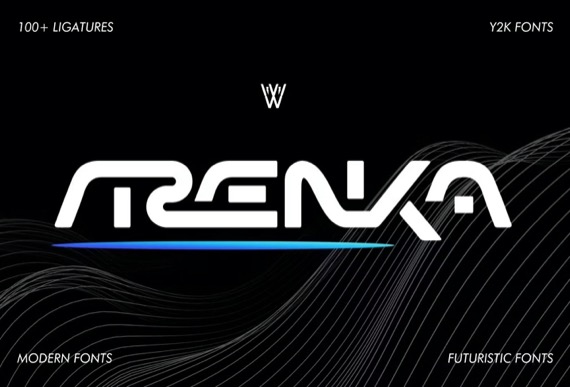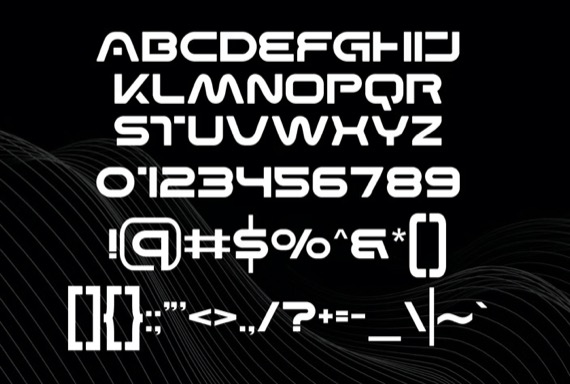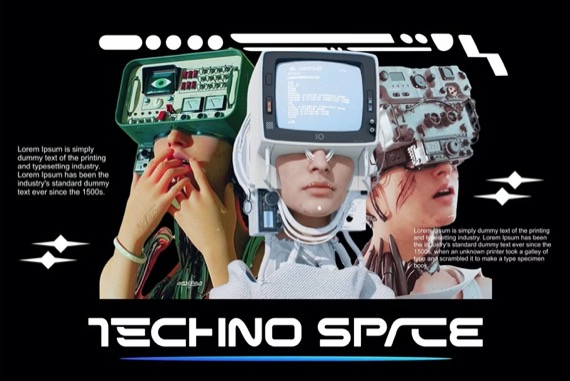
Introducing Arenka Font, it is a gorgeous representation of techno style in the sans font category. Carefully designed, this font exudes a clean and elegant impression, suitable for various graphic design projects. With rich OpenType features, Qalloky showcases versatility in its usage.
The birth of the Arenka Font is a fact of my concern for the interest of digital artists out there who want to bring the nuances of Y2k fonts back to the fore.
Arenka comes with new innovations, around 100+ Ligatures and 100+ glyphs available and carries a futuristic form that has been coveted by the market, now Arenka Fonts can embrace the “Newstalgia” who want to reminisce by mixing new nuances in today’s modern era.
Arenka Techno Display Font